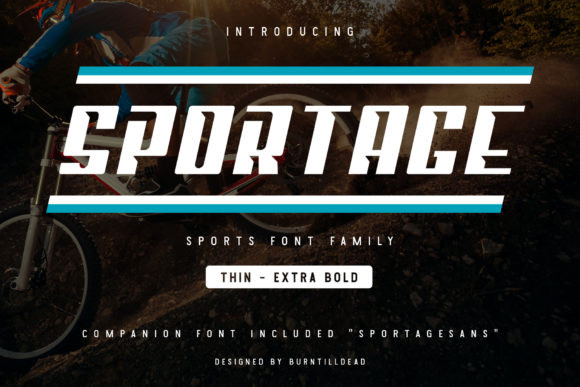
Sportage Font
Sportage is a bold display font, carefully handcrafted to become a true favorite. Use this gorgeous and unique font to bring any DIY project to life!